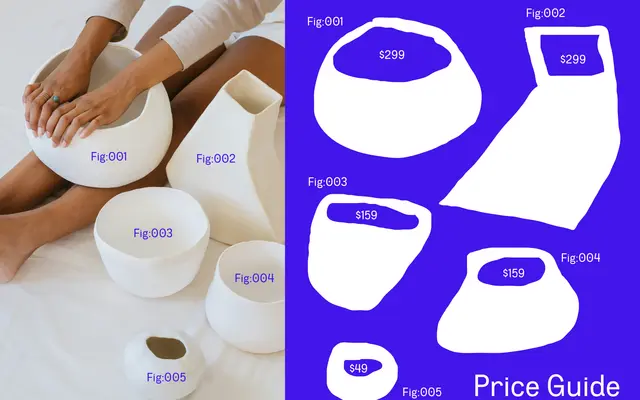
Utility Sans Variable Family
A semi-mono geometric sans with a tech-leaning aesthetic, available in both static and variable formats across four weights.
Built around semi-monospaced proportions, it aims at projects requiring a clean, futuristic register. The family ships in Light, Regular, SemiBold and Bold, each available as both static and variable fonts, with the variable axis allowing continuous interpolation across that range. Glyph coverage extends to Latin Extended with small capitals, alternate single-storey forms, square variants and a full set of numerator, denominator and scientific inferiors.
The foundry describes it as semi-mono with a tech-oriented aesthetic, placing it in geometric sans territory with monospaced influences and variable font technology.